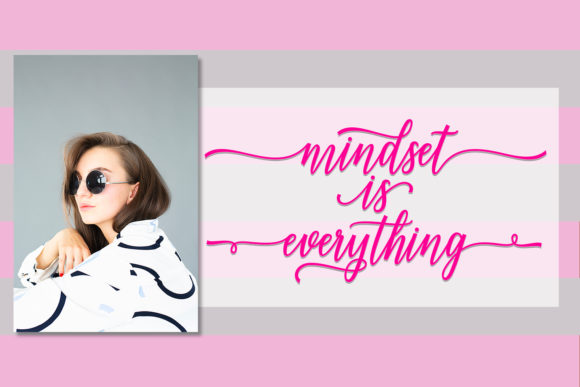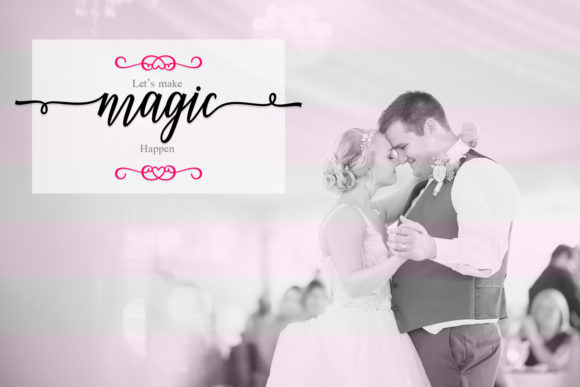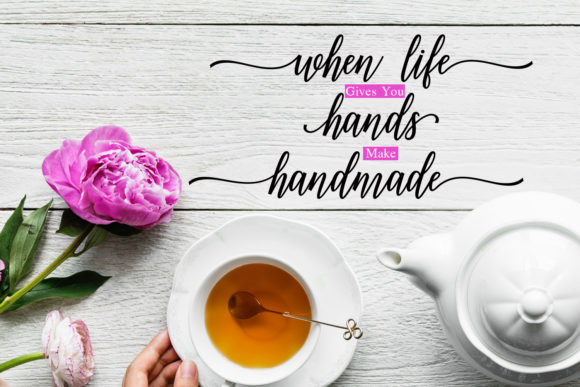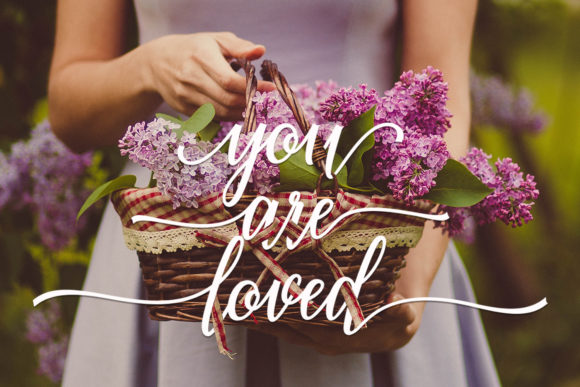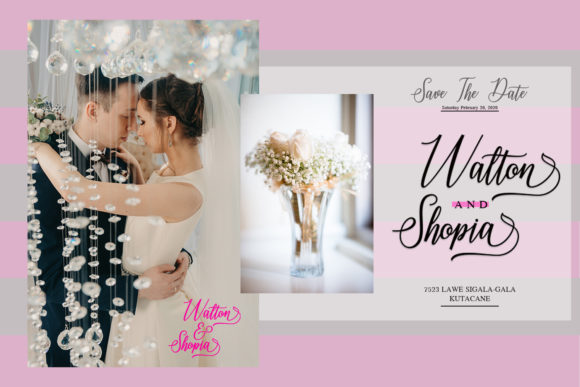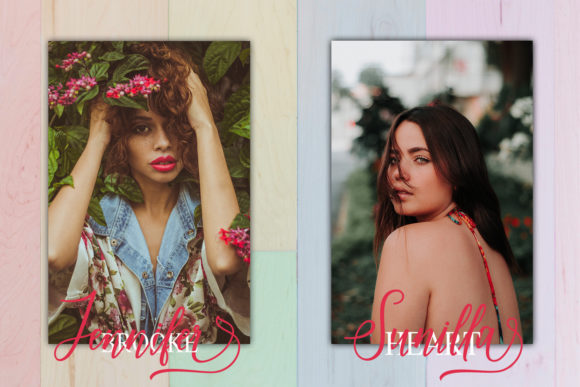
Introducing Delthami Script Font: Elevate Your Crafting Projects with Elegance and Flair
In the world of crafting and design, the right font can make all the difference between a project that looks good and one that truly stands out. For those seeking a fresh and modern handwritten font that brings a touch of elegance and personality to their work, look no further than Delthami Script Font. This beautiful font is not just any ordinary script font; it’s a statement piece designed to turn any crafting project into a true eye-catcher.
What Makes Delthami Script Font Special?
Delthami is characterized by its incredibly beautiful swashes, which are decorative flourishes that can be added to letters to give text a more dynamic and artistic look. These swashes are not just limited; Delthami comes with a wide range of them, allowing designers and crafters to experiment with different styles and combinations to match their project’s theme and their personal taste.
Delthami’s design is both fresh and modern, making it versatile enough to be used in various crafting projects, from DIY cards and invitations to scrapbooking and other decorative arts. Its handwritten nature gives it a personal and intimate feel, perfect for projects where you want to convey warmth and personality.
Using Delthami Script Font in Your Projects
Delthami’s versatility shines in its adaptability to different project types. Here are a few ideas on how you can use Delthami to elevate your crafting projects:
- DIY Cards and Invitations: Add a personal touch to your greeting cards and invitations with Delthami’s elegant and flowing script.
- Scrapbooking: Use Delthami to journal your memories or to add titles and captions to your scrapbook pages, giving them a unique and personalized feel.
- Decorative Arts: From canvas prints to wall art, Delthami can be used to add a modern and artistic touch to any decorative piece.
Why Designers and Crafters Love Delthami
Delthami has quickly become a favorite among designers and crafters for several reasons:
- Ease of Use: Despite its professional look, Delthami is incredibly easy to use, even for those who are new to design.
- Customization: With its extensive range of swashes, Delthami offers endless possibilities for customization, allowing users to make the font their own.
- Modern Aesthetic: Its fresh and modern look makes it perfect for contemporary projects that require a bit of flair.
Delthami Script Font is more than just a font; it’s a tool for creative expression. Its combination of modernity, elegance, and playfulness makes it an excellent choice for anyone looking to add a professional yet personal touch to their crafting projects. Whether you’re a seasoned designer or a hobbyist crafter, Delthami has the potential to transform your work and make it truly unforgettable. So why settle for ordinary when you can make your projects extraordinary with Delthami Script Font?
Embrace the beauty of Delthami and watch your crafting projects turn into stunning pieces of art that capture attention and inspire admiration.